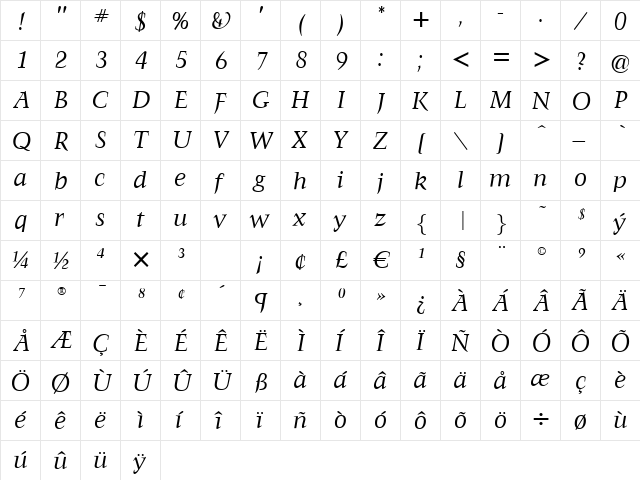
Farringdon Italic
Design Context for Farringdon Typeface
Farringdon offers clean, dependable letterforms without strong stylistic allegiance, making it a practical choice for designers who need flexibility. Its italic angle brings a sense of urgency and motion to the letterforms.
Pro Tip: Try Farringdon for annotation and caption copy alongside an upright companion — the contrast in angle creates a dynamic but ordered typographic system.